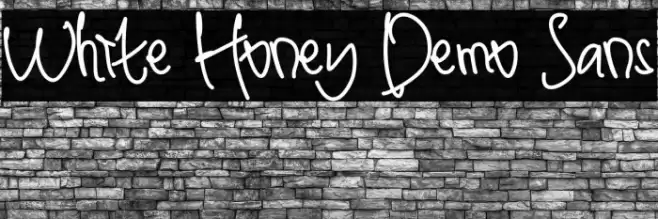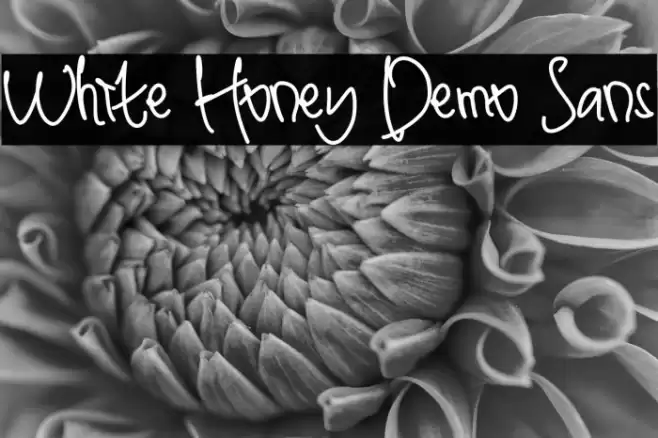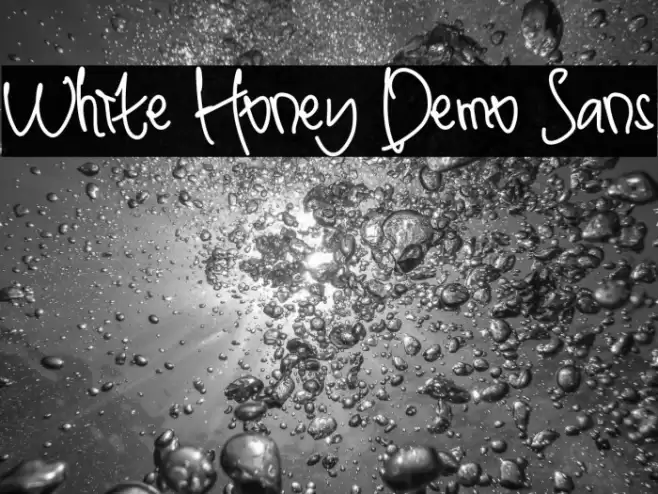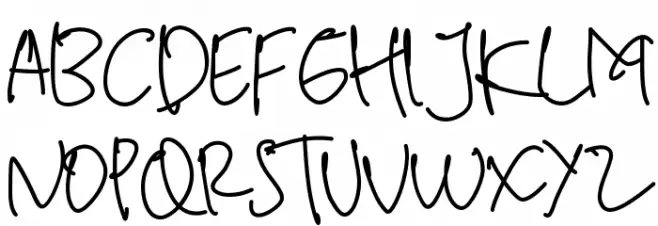
White Honey Demo Sans Font
White Honey Demo Sans Description
This font features a playful and casual handwritten style, characterized by its loose and flowing letterforms. The strokes are uneven, giving it a dynamic and organic feel. The uppercase and lowercase letters maintain a consistent style, with some letters exhibiting unique flourishes and loops that add to its charm. The overall appearance is informal and approachable, making it suitable for creative and artistic projects. The font's irregularity and whimsy make it stand out, providing a personal touch to any design.
A playful, casual handwritten font with dynamic, flowing strokes from Regular fonts.
- Proposed Projects: Ideal for greeting cards, invitations, personal branding, and creative projects that require a personal touch.
- Overall Style: Casual, Playful
- Use Case: Logos, Invitations, Creative projects